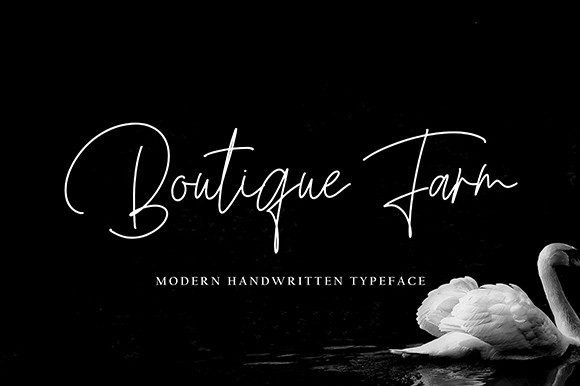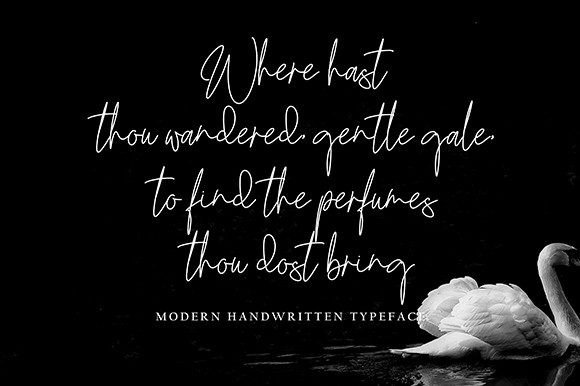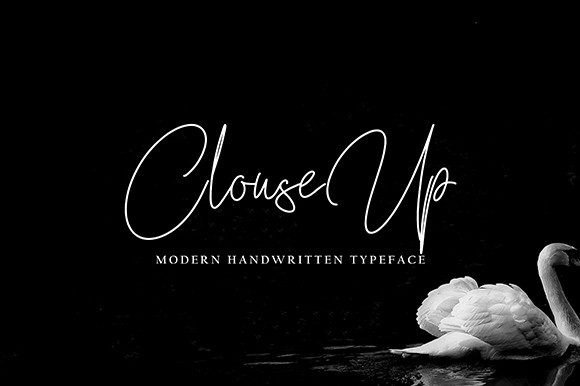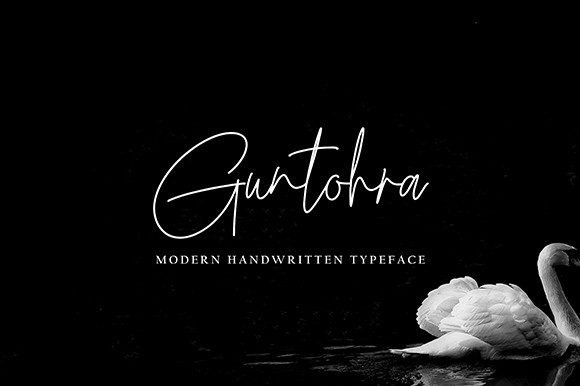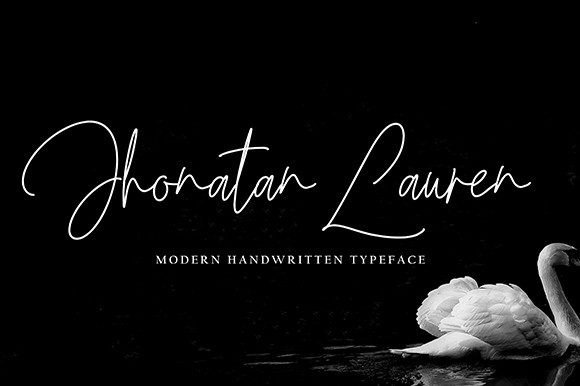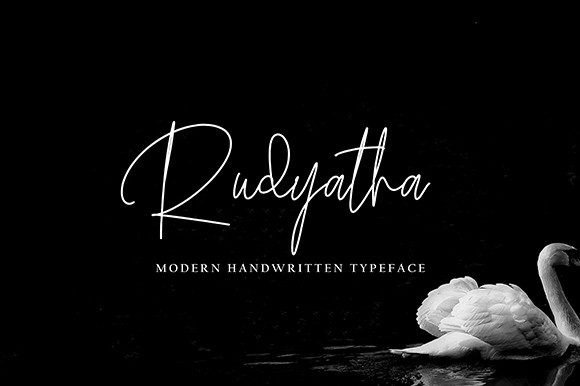
The Perfect Script for Your Next Design Project
Have you ever found yourself stuck on a design project, struggling to find the perfect font to bring your vision to life? You’re not alone. We’ve all been there, pouring over font libraries and tutorials, searching for that elusive perfect script. But what if I told you that there’s a font that can make all the difference? Introducing Bodally Rhisk Font, a unique and elegant handwritten font that’s sure to add a touch of personality to any design.
Designed with versatility in mind, Bodally Rhisk Font is perfect for a wide range of projects, from wedding invitations and thank you cards to logos and greeting cards. Its beautiful, flowing script is sure to capture the attention of your audience and leave a lasting impression. As a designer, you’ll appreciate the value of this font, which can elevate even the most basic designs into something truly special.
Bodally Rhisk Font Key Features
- Font Family: Bodally Rhisk is a unique, custom font designed for specific use cases.
- Font Size and Resolution: Designed to be highly legible at various sizes, with optimal results at 12-24 points, and suitable for resolutions up to 300 DPI.
- Unique Characteristics: Bodally Rhisk features a distinctive blend of modern and vintage elements, making it ideal for projects requiring a unique aesthetic.
Bodally Rhisk Font Review
I’ve had the chance to work with Bodally Rhisk Font, and I’m excited to share my thoughts on this unique font.
- Unique Character: Bodally Rhisk Font stands out with its distinctive style, making it perfect for those looking for a font that’s truly one-of-a-kind.
- Excellent for Emphasis: The font’s bold and dramatic flair makes it ideal for headings and titles, adding a touch of sophistication to any design.
- Legibility: Despite its unconventional style, Bodally Rhisk Font remains relatively easy to read, especially in larger font sizes.
- Readability at Small Sizes: While the font is legible at larger sizes, it can become difficult to read when used in smaller font sizes.
- Lack of Consistency: The font’s irregularities can sometimes make it challenging to maintain consistency in design, particularly when working with long blocks of text.
Bodally Rhisk Font is a great choice for designers who want to add a touch of drama and sophistication to their work. While it may not be suitable for all types of projects, its unique character and excellent emphasis make it a valuable addition to any font collection.
Bodally Rhisk Font: A Practical Application Guide
Tips for Getting the Most Out of Bodally Rhisk Font
Use Bodally Rhisk Font for creative projects that require a unique and eye-catching font.
Experiment with different font sizes, colors, and styles to achieve the desired effect.
Combine Bodally Rhisk Font with other creative elements, such as images and graphics, to add visual interest to your project.
Bodally Rhisk Font is suitable for:
Business cards and marketing materials.
Artistic projects, such as posters and flyers.